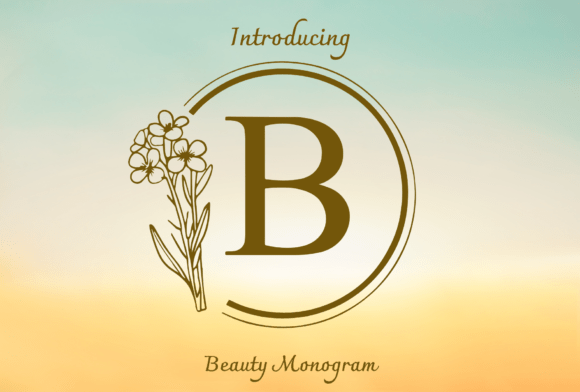
Introducing Beauty Monogram Font: Elevate Your Brand with Elegance
The world of beauty and wellness is a highly competitive market, where branding plays a crucial role in setting a business apart from its competitors. A well-crafted brand identity can convey a sense of luxury, sophistication, and elegance, making it essential for businesses to invest in high-quality design elements. One of the most effective ways to create a lasting impression is through the use of a beautiful monogram font. In this article, we will explore the Beauty Monogram Font, an elegant serif and script combo ideal for minimalist floral logos and feminine branding.
What is Beauty Monogram Font?
Beauty Monogram Font is a stunning combination of serif and script fonts, carefully crafted to provide a sophisticated and elegant look. This font combo is perfect for businesses operating in the beauty and wellness industry, including spas, salons, and beauty product manufacturers. The clean lines and botanical accents of the font make it an ideal choice for creating personal monograms, spa logos, and beauty packaging.
Key Features of Beauty Monogram Font
- Elegant Serif and Script Combo: The Beauty Monogram Font features a beautiful combination of serif and script fonts, providing a sophisticated and elegant look.
- Minimalist Floral Logos: The font’s clean lines and botanical accents make it perfect for creating minimalist floral logos that exude elegance and sophistication.
- Feminine Branding: The Beauty Monogram Font is designed to cater to feminine branding needs, making it an ideal choice for businesses targeting a female audience.
- Personal Monograms: The font is perfect for creating personal monograms that can be used on business cards, letterheads, and other marketing materials.
- Spa Logos and Beauty Packaging: The Beauty Monogram Font is also suitable for creating spa logos and beauty packaging, helping businesses to establish a strong brand identity.
Benefits of Using Beauty Monogram Font
Using the Beauty Monogram Font can have numerous benefits for businesses operating in the beauty and wellness industry. Some of the key benefits include:
- Enhanced Brand Identity: The font helps businesses to create a strong and elegant brand identity that sets them apart from competitors.
- Improved Brand Recognition: The use of a consistent font across all marketing materials can improve brand recognition and make a business more memorable.
- Increased Professionalism: The Beauty Monogram Font’s elegant design conveys a sense of professionalism and sophistication, making it perfect for businesses that want to establish a high-end brand image.
- Flexibility: The font can be used across various marketing materials, including business cards, letterheads, brochures, and website headers.
How to Use Beauty Monogram Font
Using the Beauty Monogram Font is easy and straightforward. Here are some tips on how to incorporate the font into your branding:
- Logos and Branding: Use the font to create a stunning logo that reflects your brand’s values and personality.
- Business Cards and Letterheads: Use the font on business cards and letterheads to create a consistent brand image.
- Website Headers and Footers: Use the font on website headers and footers to create a cohesive brand identity.
- Social Media Graphics: Use the font on social media graphics to create engaging and brand-consistent content.
Tips for Pairing Beauty Monogram Font with Other Fonts
Pairing the Beauty Monogram Font with other fonts can help to create a unique and visually appealing brand identity. Here are some tips on how to pair the font with other fonts:
- Serif Fonts: Pair the Beauty Monogram Font with other serif fonts to create a cohesive and elegant look.
- Script Fonts: Pair the font with other script fonts to create a romantic and feminine look.
- Sans-Serif Fonts: Pair the font with sans-serif fonts to create a modern and clean look.
In conclusion, the Beauty Monogram Font is an elegant serif and script combo ideal for minimalist floral logos and feminine branding. Its clean lines and botanical accents make it perfect for personal monograms, spa logos, and beauty packaging. By using this font, businesses can create a strong and elegant brand identity that sets them apart from competitors. With its numerous benefits and flexibility, the Beauty Monogram Font is an excellent choice for businesses operating in the beauty and wellness industry.
- What is the Beauty Monogram Font? The Beauty Monogram Font is an elegant serif and script combo ideal for minimalist floral logos and feminine branding.
- What is the Beauty Monogram Font suitable for? The font is suitable for personal monograms, spa logos, beauty packaging, and other marketing materials.